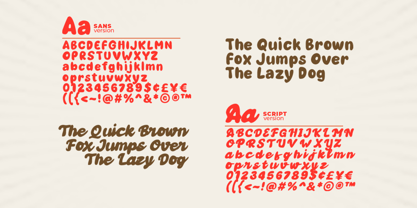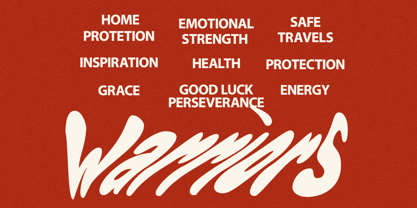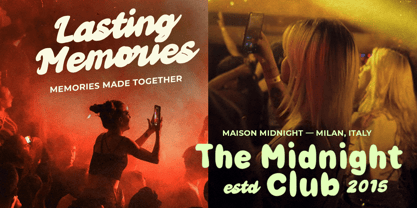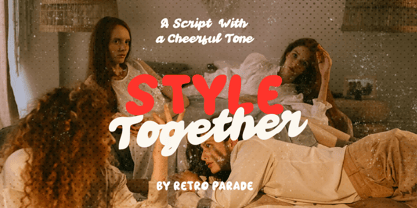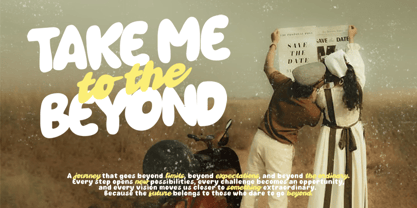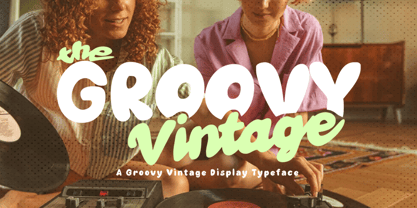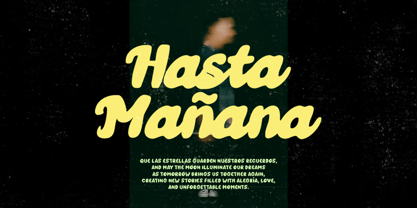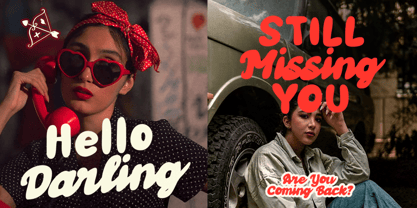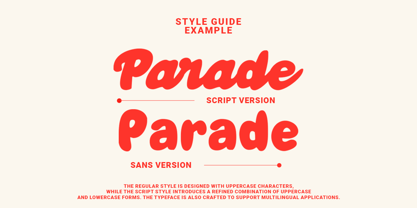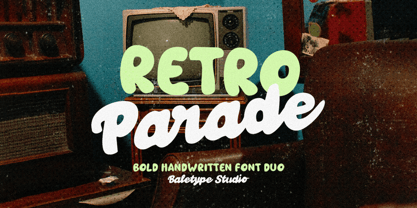
Retro Parade
von Bale Type
Die Schriftfamilie Retro Parade wurde von Ridho Azumarta entworfen und von Bale Type veröffentlicht. Retro Parade enthält 2 Stile und Familienpaketoptionen. Mehr über diese Familie
Retro Parade is a bold and groovy handwritten font duo that perfectly captures the charm of retro and vintage design. Featuring both a stylish sans and a flowing script, this versatile typeface is ideal for a wide range of creative projects, including posters, quotes, logotypes, branding, packaging, social media graphics, apparel, and more. Its authentic handwritten touch gives every design a natural, hand-painted feel, adding warmth and personality to your work. Whether you're creating nostalgic 70s-inspired artwork or modern vintage branding, Retro Parade delivers eye-catching results with ease. To make it even more versatile, Retro Parade also includes multilingual support, allowing you to create beautiful designs for audiences around the world.
Designer: Ridho Azumarta
Foundry: Bale Type